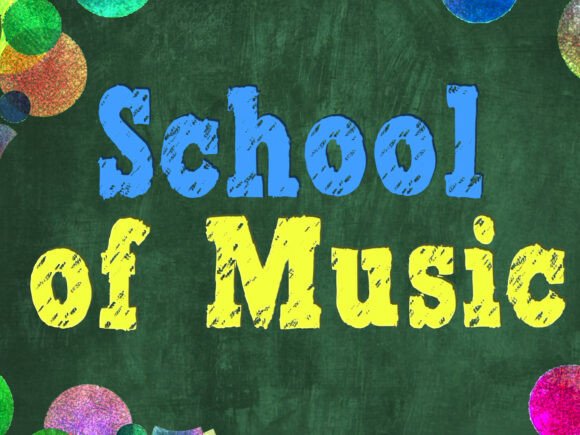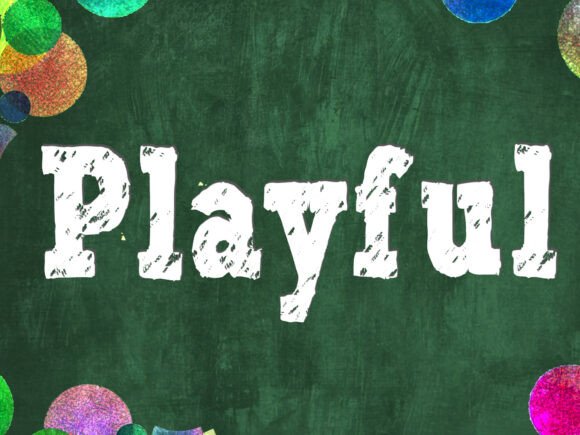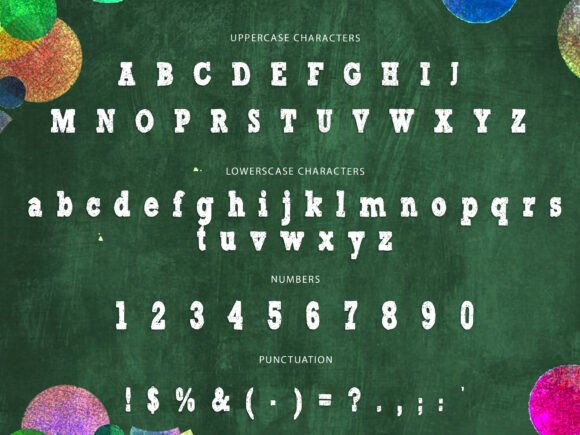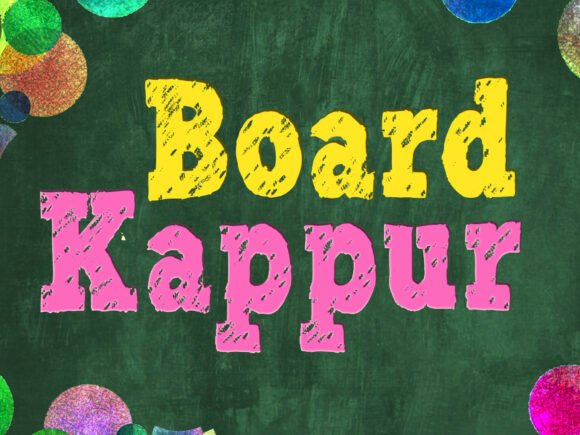
Discover the Unorthodox Charm of Board Kappur Font
I’ll never forget the design moment that led me to Board Kappur Font. I was working on a project for a client who wanted a unique, hand-sketched look for their branding. I had spent hours scouring the internet for the perfect font, but nothing seemed quite right. That was until I stumbled upon Board Kappur – an unorthodox masterpiece that brought my design to life.
A Personal Review: What I Love About Board Kappur
So, what makes Board Kappur so special? Here are a few things that I absolutely love:
• ✨ Unique Sketch-School Allure: Board Kappur has a certain charm that’s hard to put into words. Its sketch-school allure gives it a distinctive look that’s both playful and sophisticated.
• ✅ Perfect Balance of Handwritten and Grunge: This font strikes the perfect balance between the elegance of handwritten notes and the gritty appeal of grunge. It’s a match made in design heaven!
• 💯 Family Font Design: Board Kappur comes with a family font design, which means you get a range of styles that work seamlessly together. This makes it easy to create a cohesive look for your design.
While Board Kappur is an amazing font, it’s not without its quirks. Here are a few things to keep in mind:
• 🤔 Limited Formality: Board Kappur is a casual font, which means it may not be the best choice for super formal designs. However, this is also part of its charm!
• ⚠️ Glyph Overload: With so many glyphs and stylistic alternates to choose from, it’s easy to get overwhelmed. Take some time to explore the font and get familiar with its features.
The Story Behind Board Kappur
Board Kappur was created by a team of designers who wanted to push the boundaries of traditional typography. Inspired by the raw energy of grunge and the charm of handwritten notes, they set out to create a font that would bring a sense of playfulness and sophistication to any design. The result is a truly unique font that’s equal parts elegant and edgy.
What makes Board Kappur so unique? Board Kappur’s unique blend of handwritten and grunge elements sets it apart from other fonts.
Is Board Kappur a difficult font to use? Not at all! While Board Kappur has a lot of features and glyphs to explore, it’s relatively easy to use, even for beginners.
Welcome to the world of Board Kappur, where every letter tells a captivating story. With its unique blend of elegance and playfulness, this font is sure to add a touch of sophistication to any design.